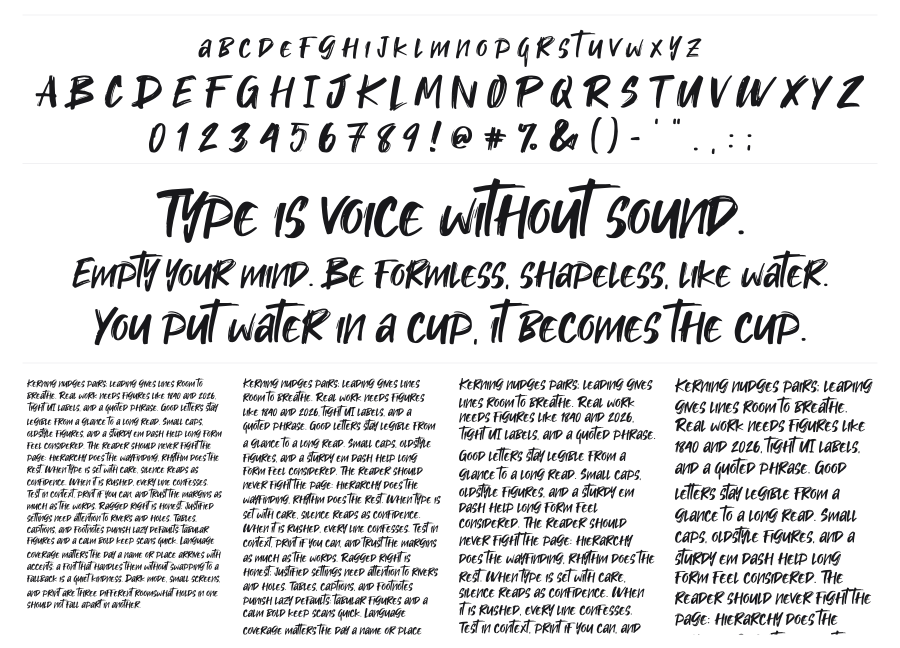
Takota
Takota is a bold brush face from Khurasan with thick, sweeping strokes that carry real kinetic energy. The letterforms feel fast and expressive, like they were laid down in a single confident pass, giving headlines and poster text an immediacy that more polished typefaces can't fake. Best at large sizes where the raw brushwork and irregular edges have room to breathe.